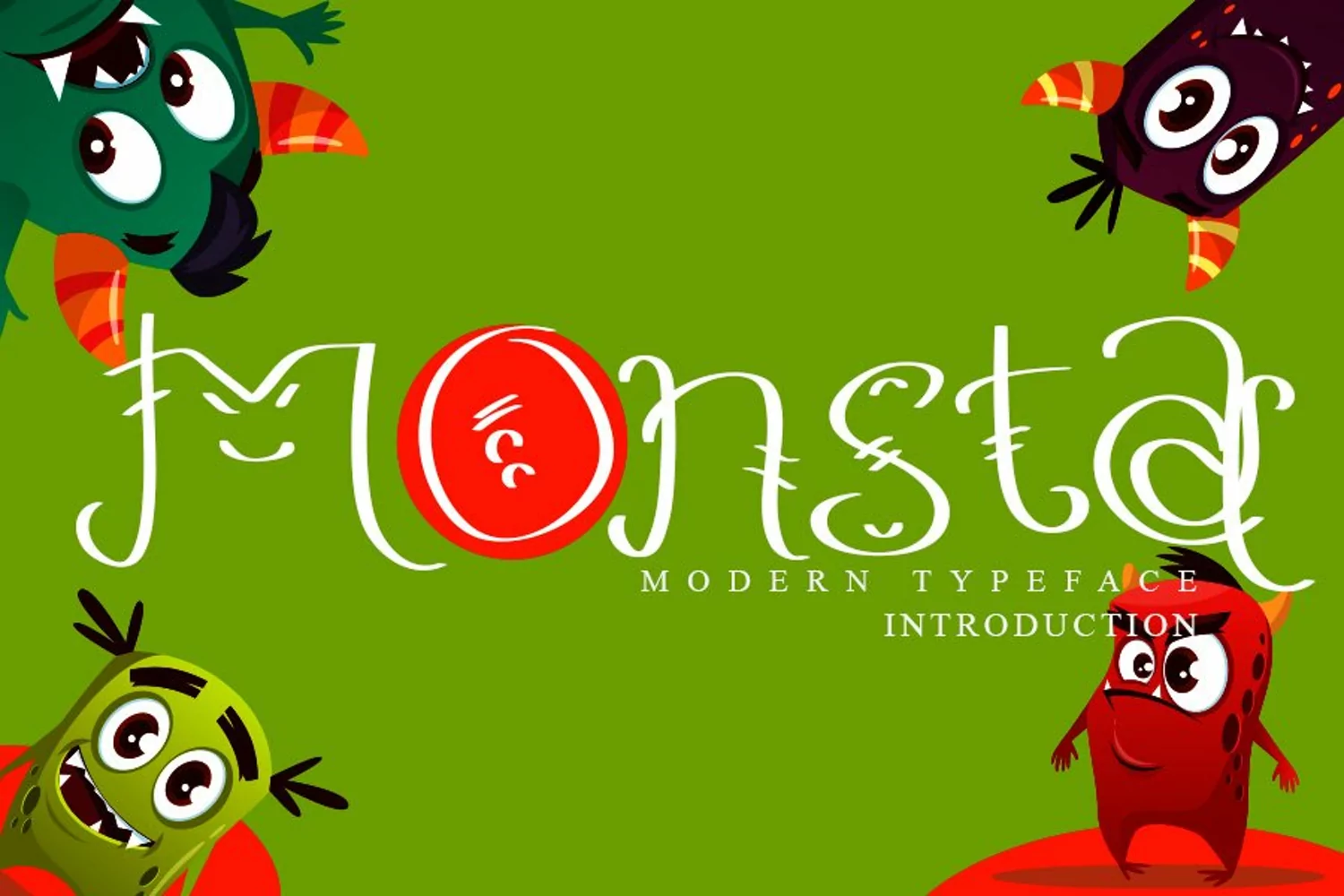
Monsta - Cute Display Font
MOnsta
Monsta is a flowing, Beauty And Love Typeface Font, described with a touch of elegance, perfect for your favorite projects. Fall in love with its completely different and timeless style and can use it to create wall designs, logos, wedding invitations, stationery, product labels, photography and much more.